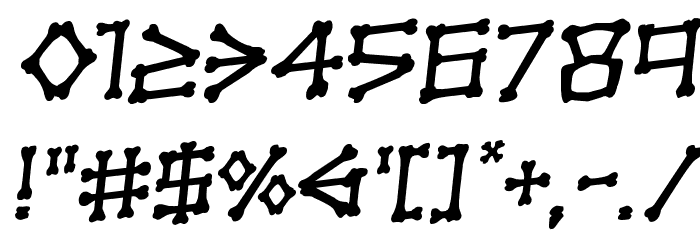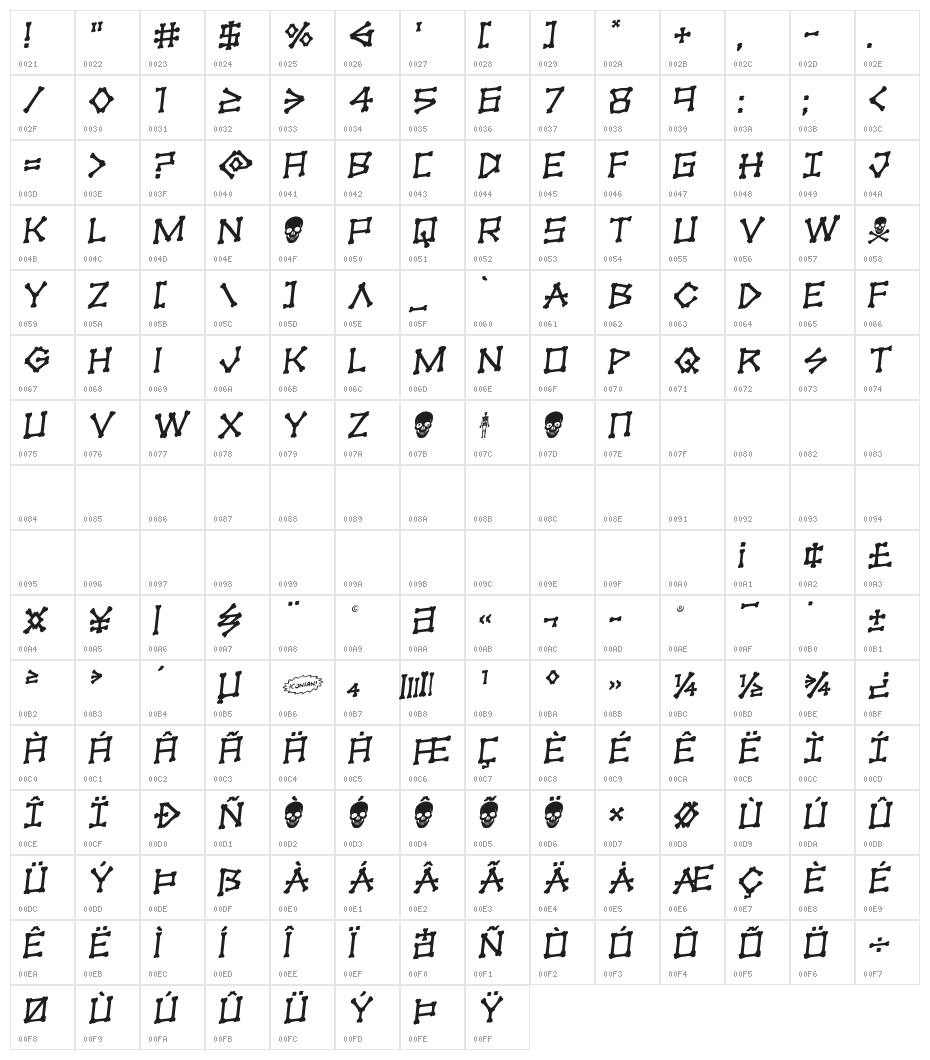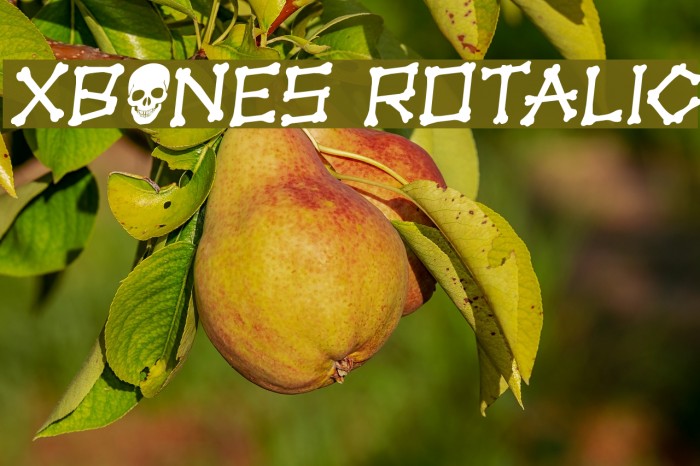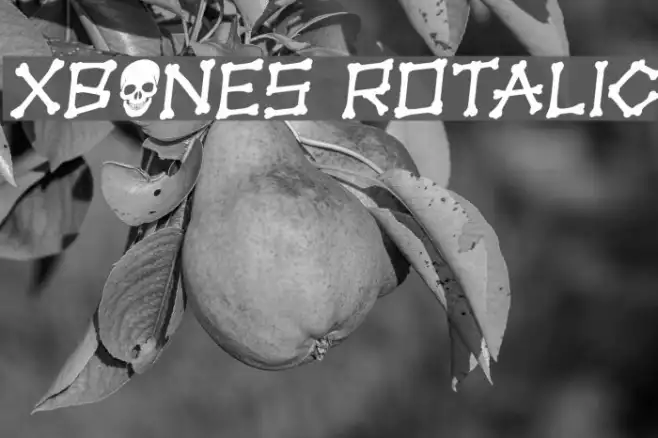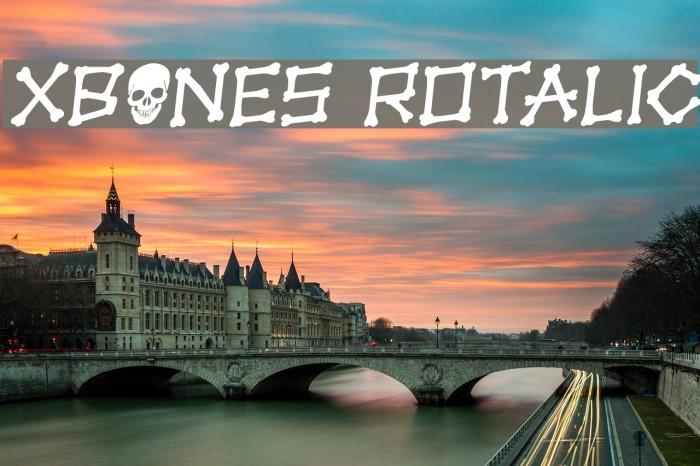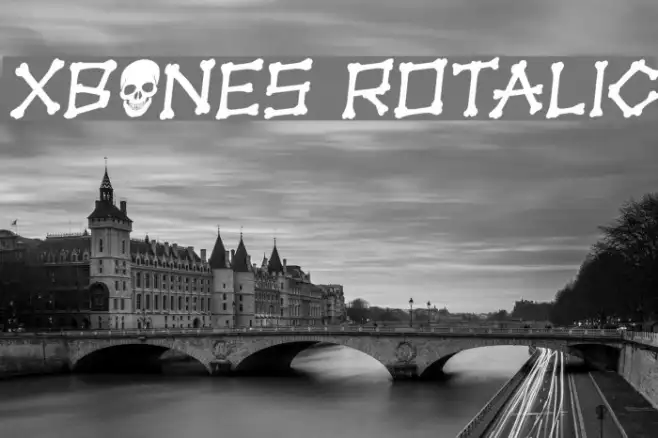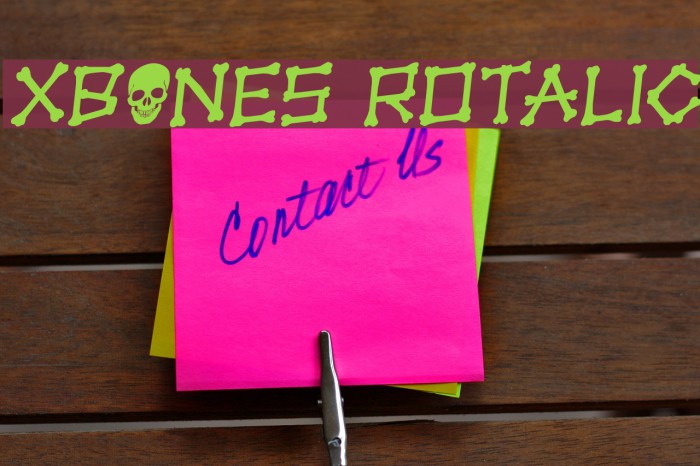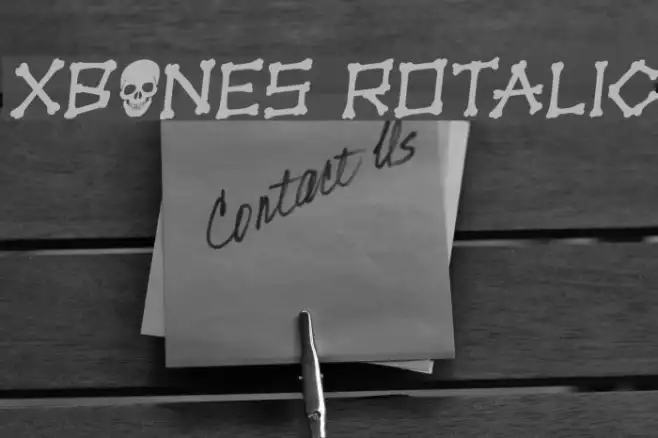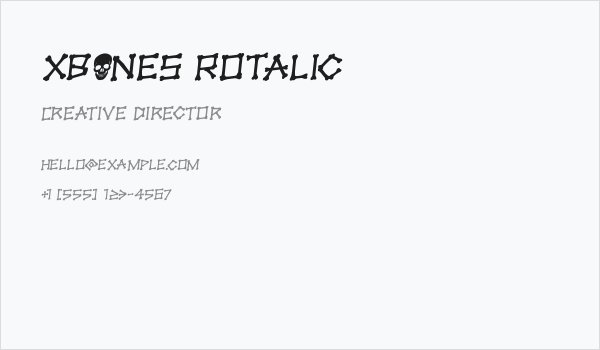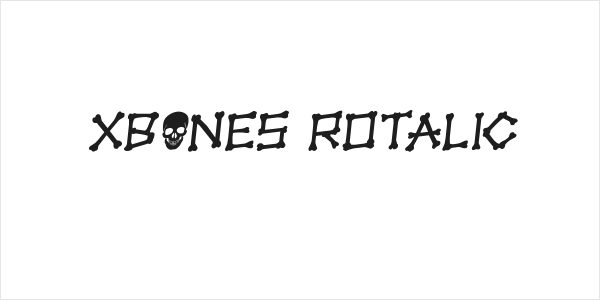
xBONES Rotalic Font
xBONES Rotalic Description
This font features a unique and edgy design, with characters resembling bones or skeletal structures. The letters have a rough, hand-drawn appearance, adding a sense of ruggedness and individuality. The uppercase and lowercase letters maintain a consistent style, with jagged edges and uneven lines that contribute to its distinctive look. Numbers and special characters follow the same theme, ensuring a cohesive appearance across all text. The font's playful yet slightly macabre aesthetic makes it ideal for projects that require a bold and unconventional style.
| Use Case | Headlines, Logos, Themed Events |
| Proposed Projects | Perfect for Halloween-themed designs, horror movie posters, edgy branding, or any project requiring a bold, unconventional style. |